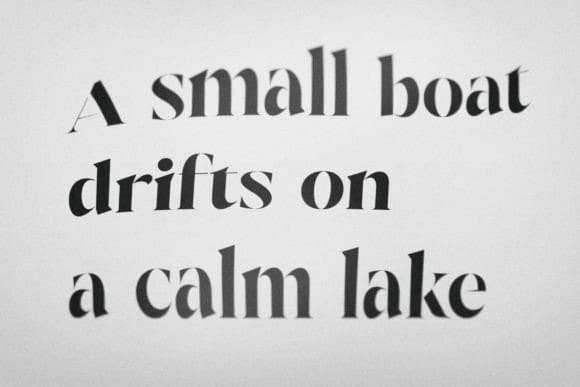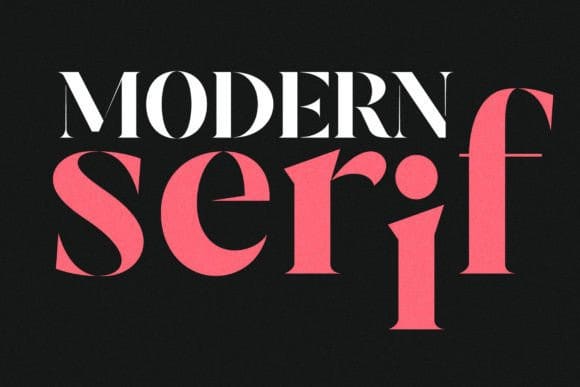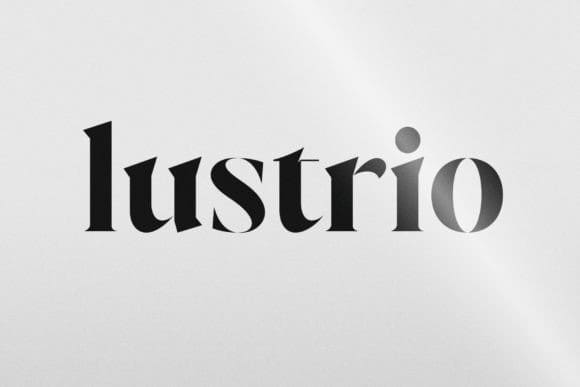
Lustrio Font
Lustrio Font, a bold and elegant display font designed to captivate and impress. With its high contrast and striking style, Lustrio is perfect for making headlines, advertisements, and packaging stand out. Its sophisticated design adds a touch of luxury to any project, ensuring your message is both powerful and memorable.